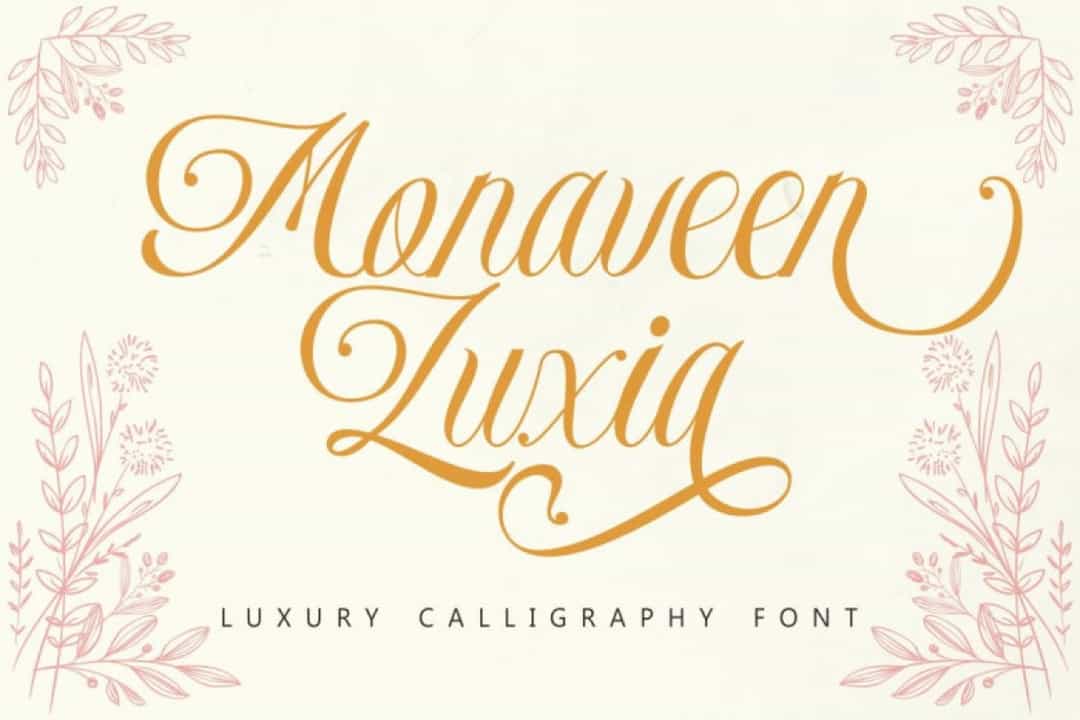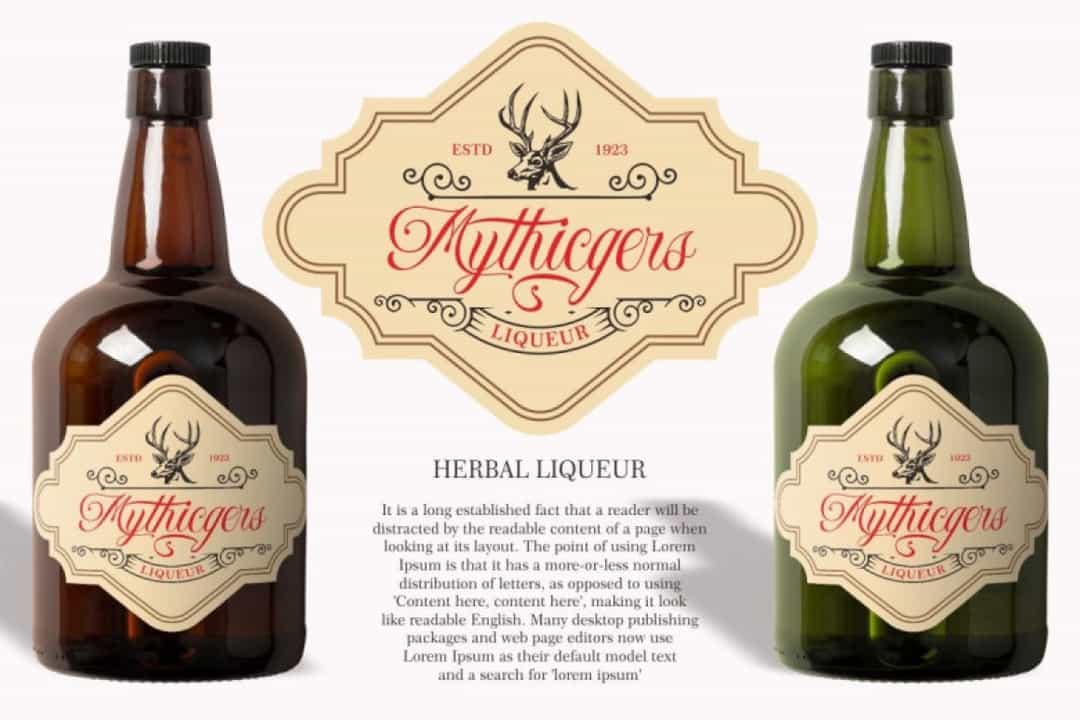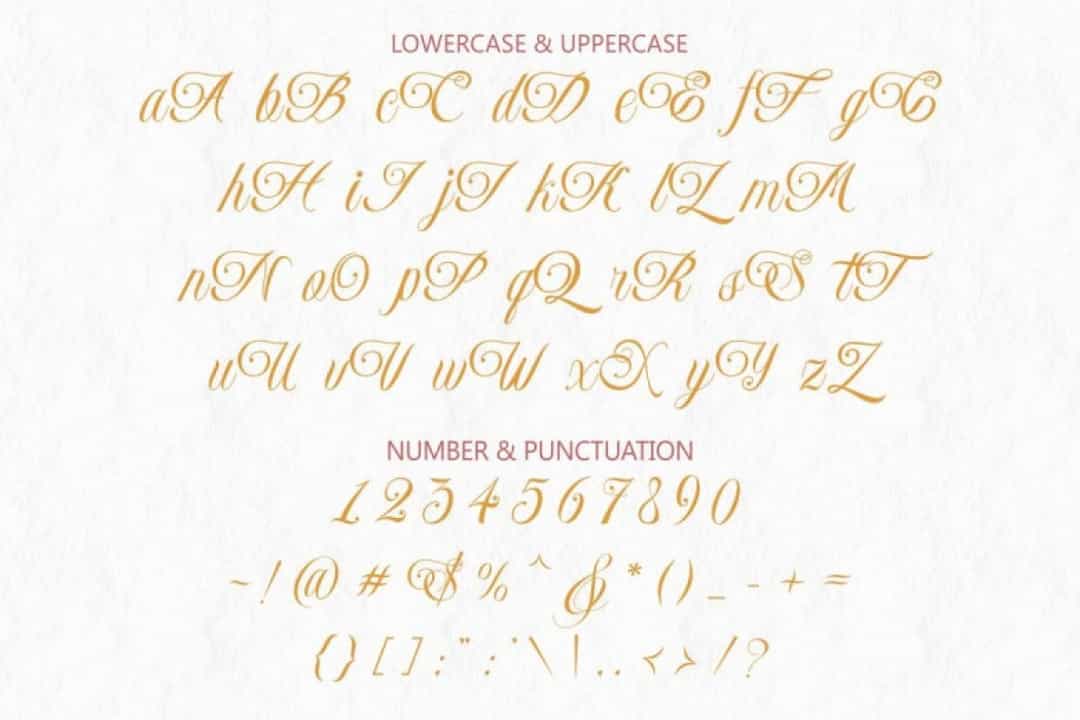
Monaveen Luxia Calligraphy Font is an elegant, flowing script typeface featuring exquisite and balanced characters – ideal for use across many designs! Furthermore, being PUA encoded means it provides access to all characters and symbols easily!